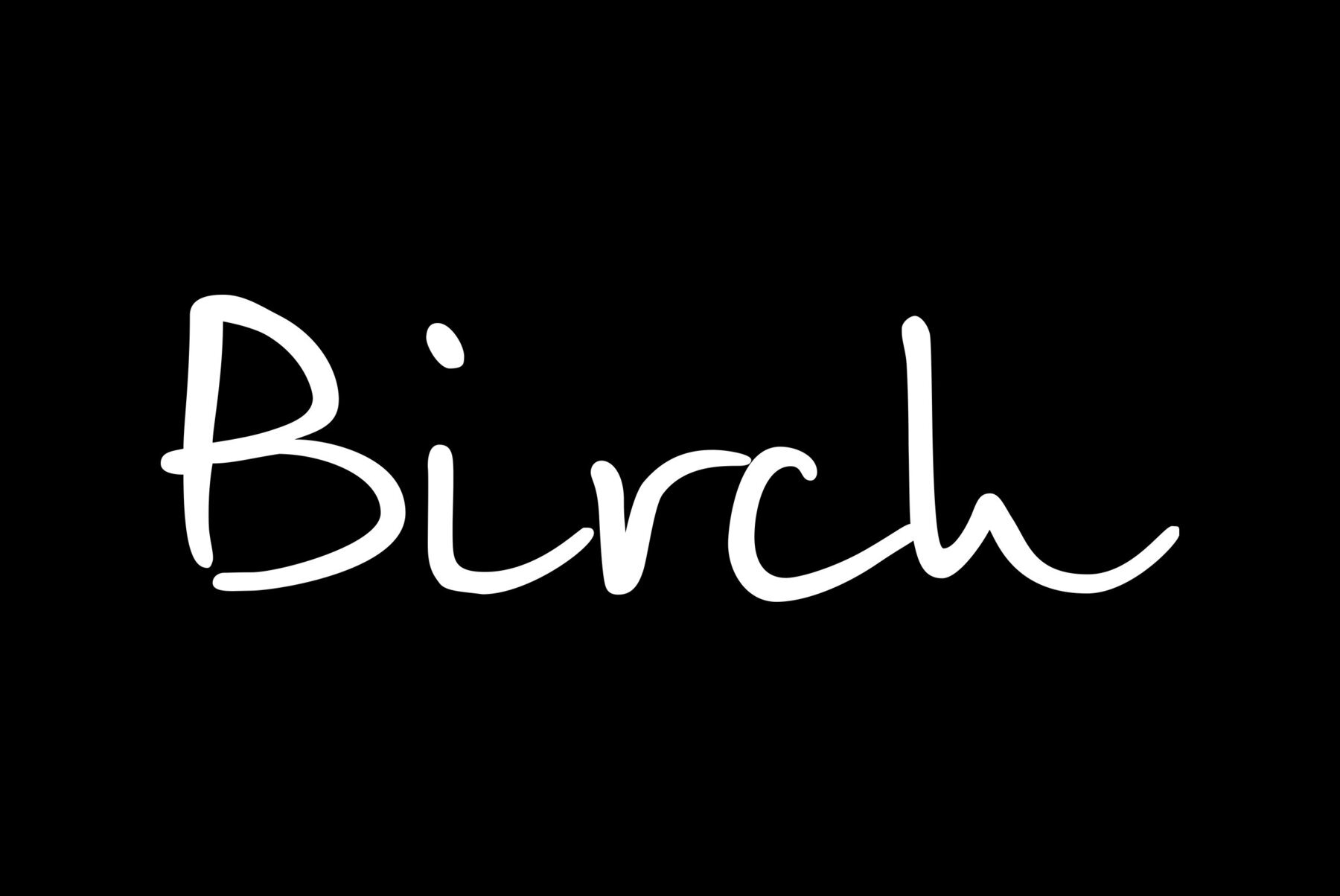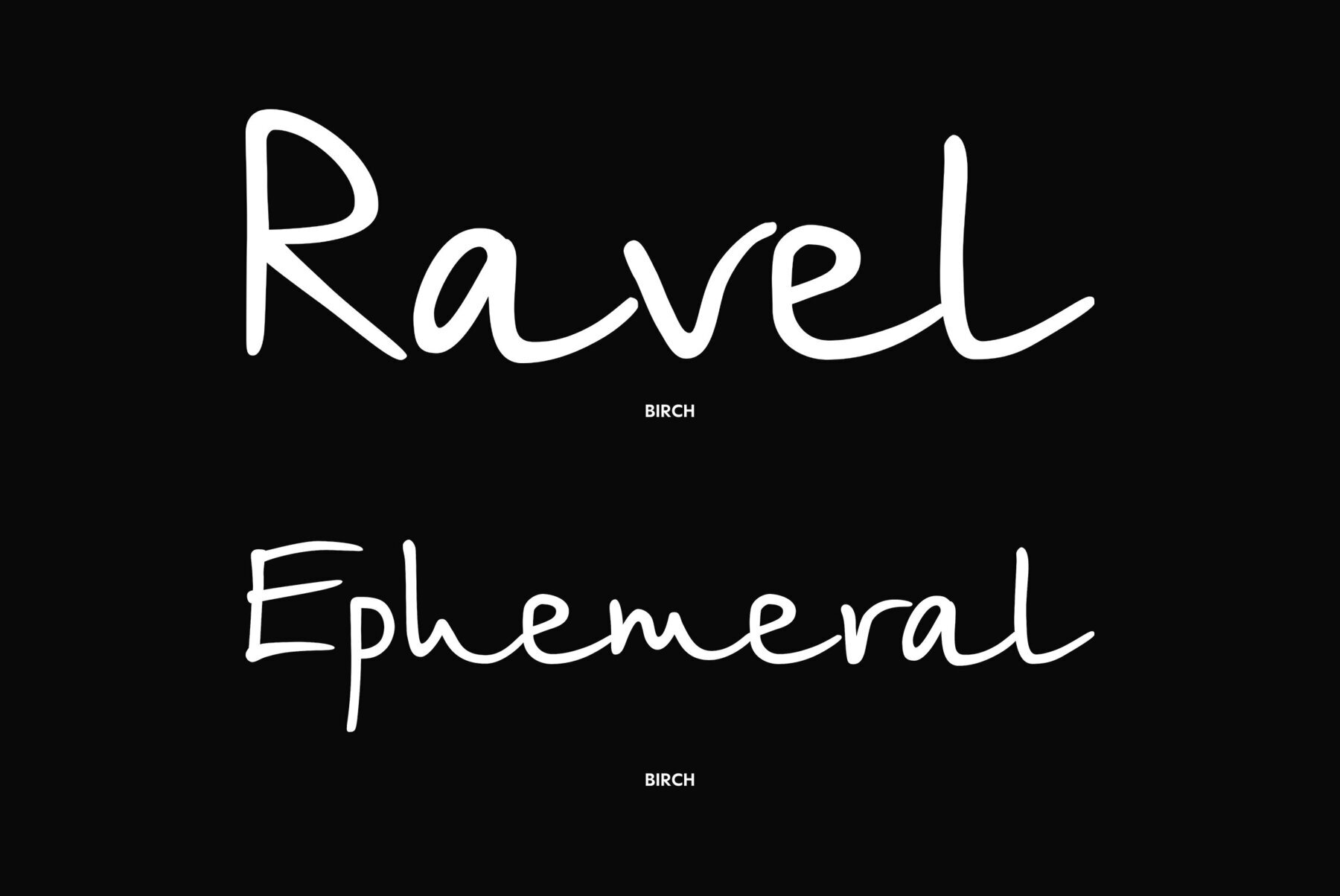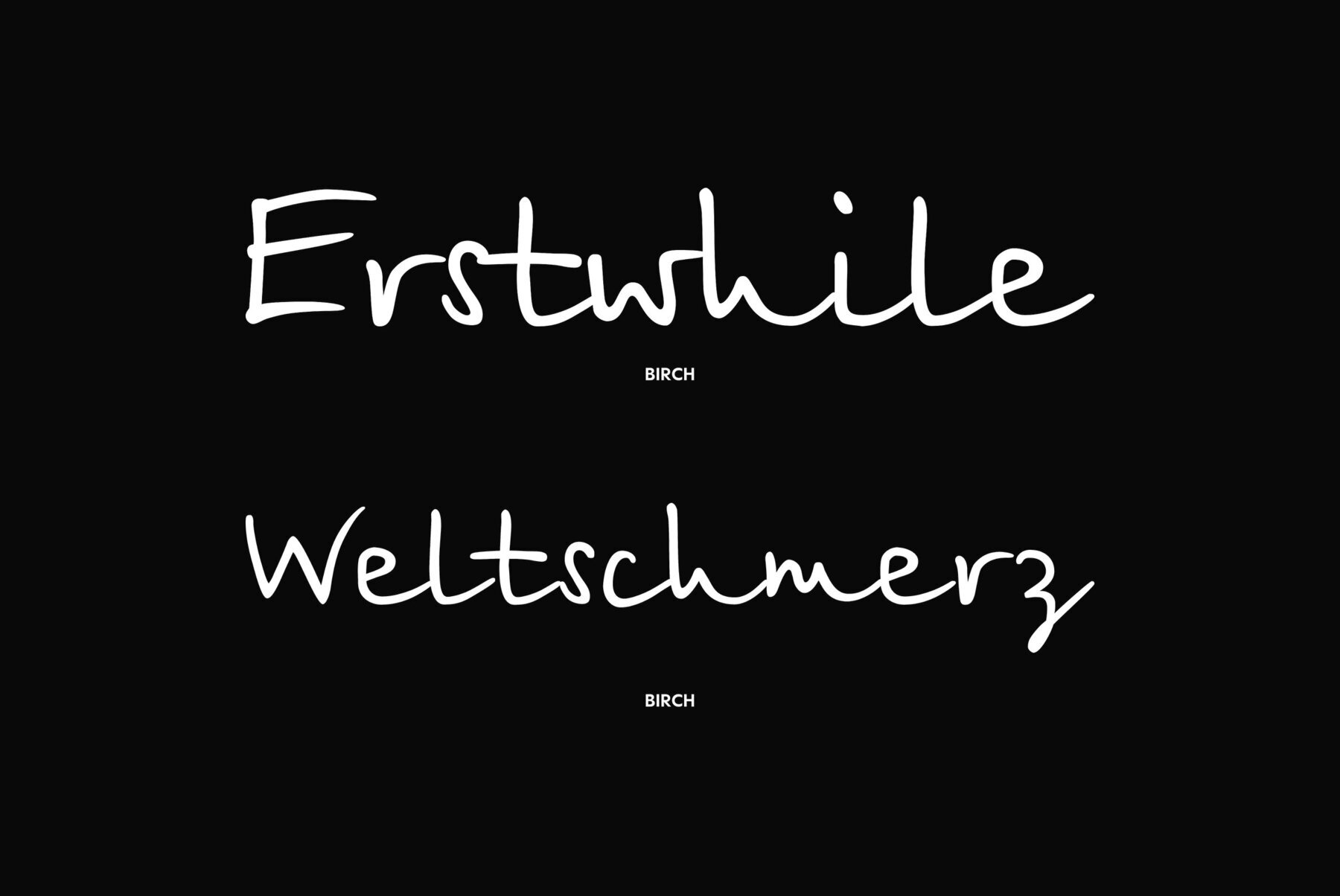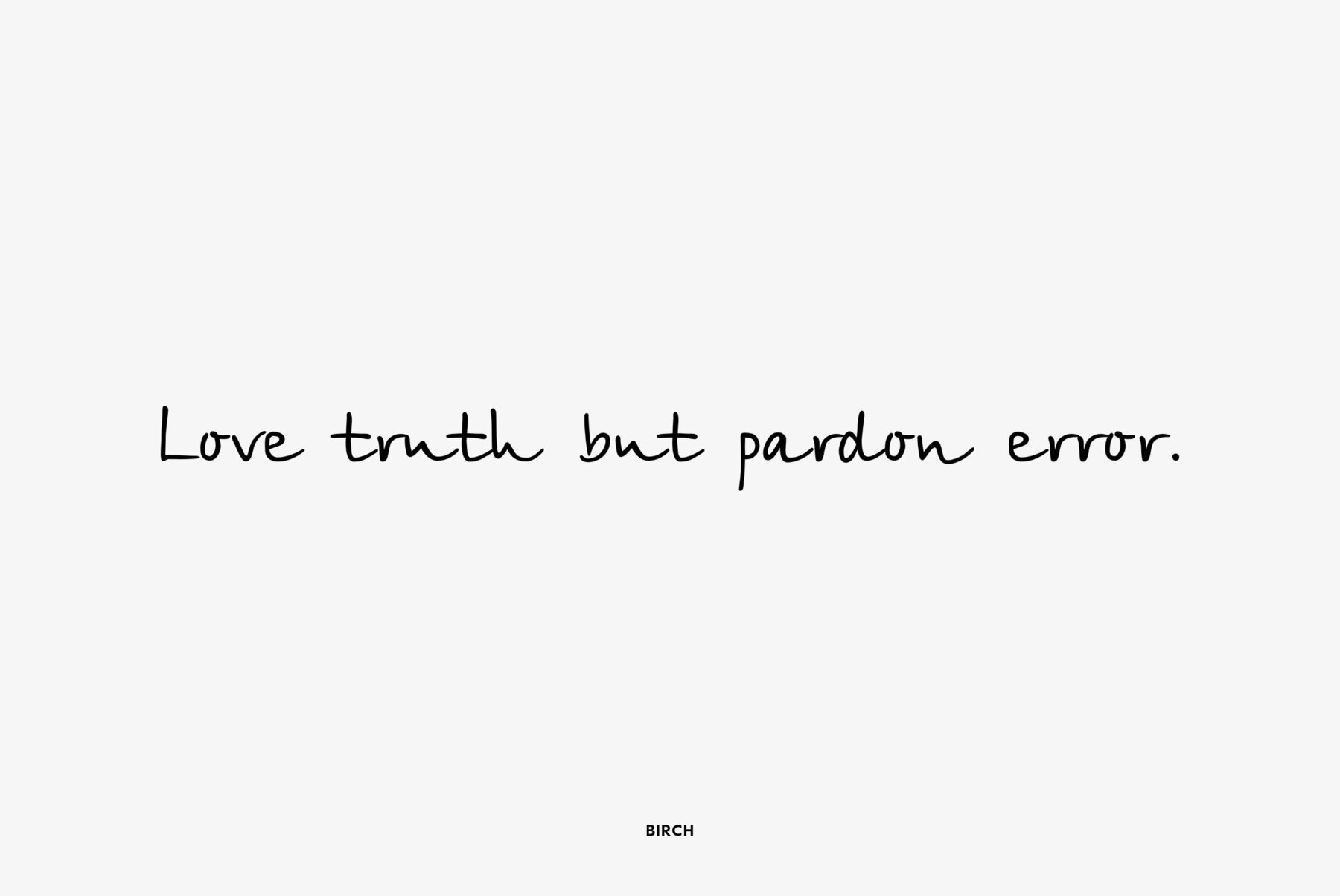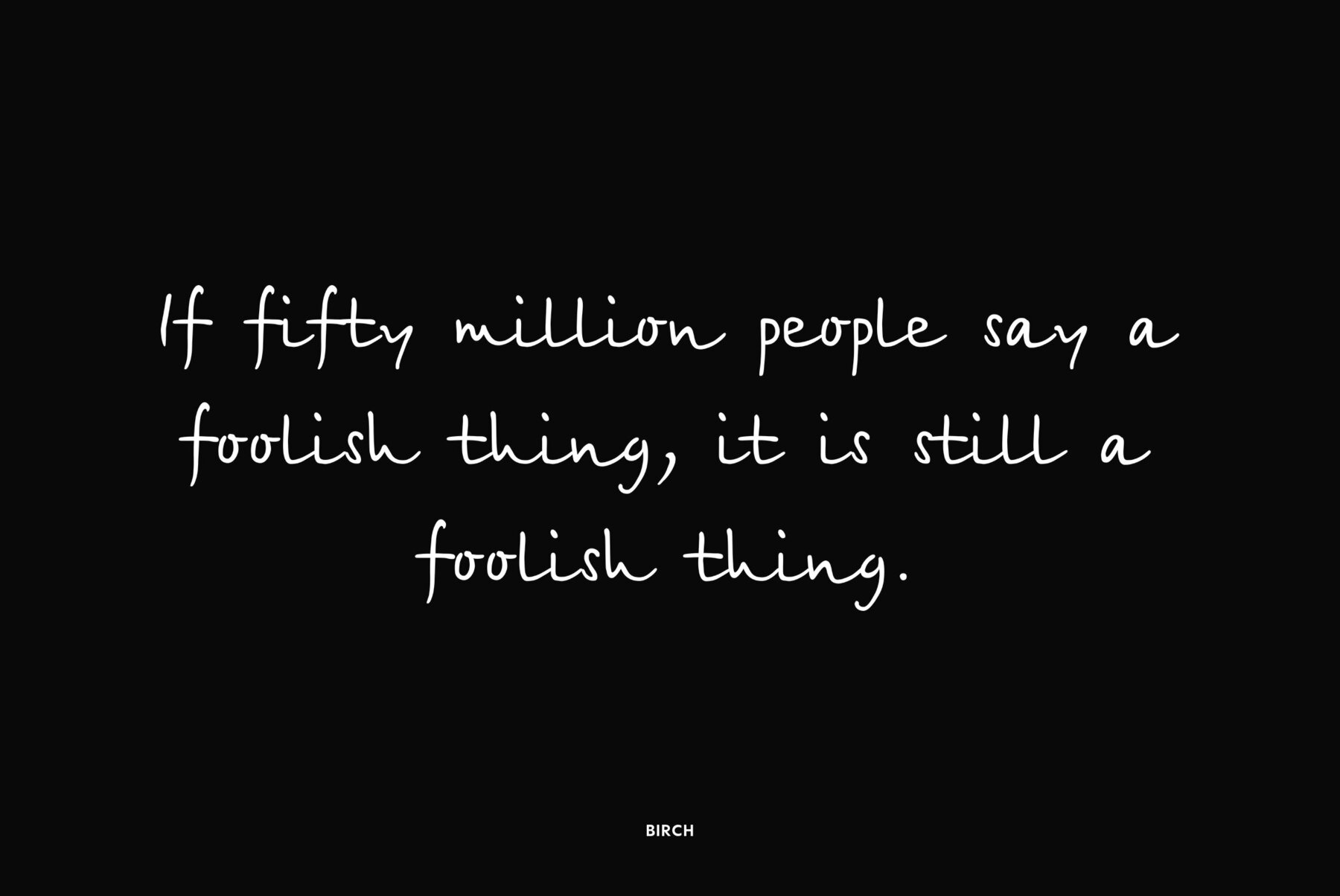
Designed at ParaType (ParaGraph) in 1995 by Tagir Safayev. Based on informal pen handwriting. For use in advertising and display typography. A set of Western characters was added in 2011 by Gennady Fridman.